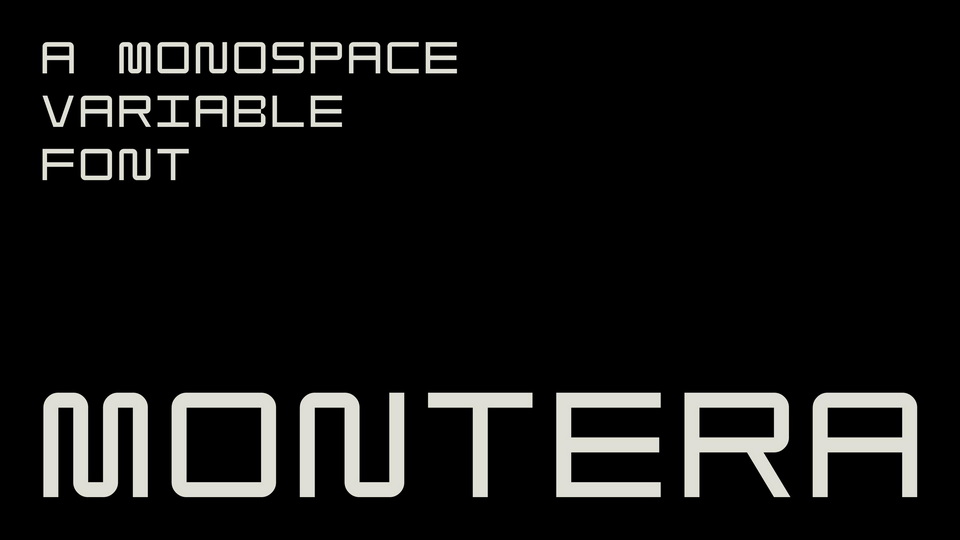
Download Montera font, a monospace variable typeface inspired by boxes and containers. It’s thickness on vertical stokes give a playful yet orderly pattern.